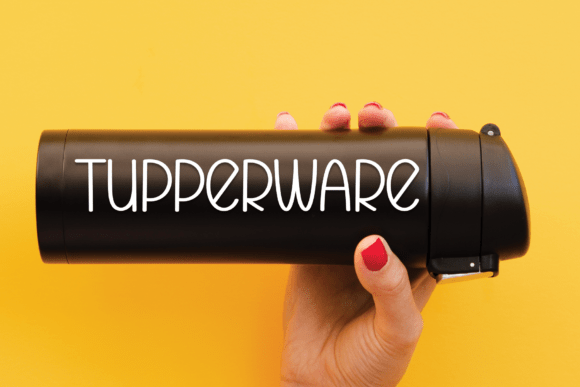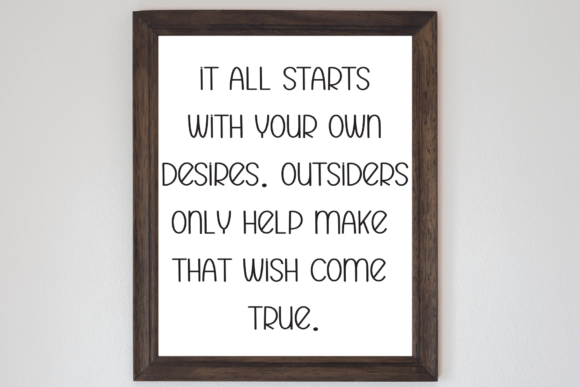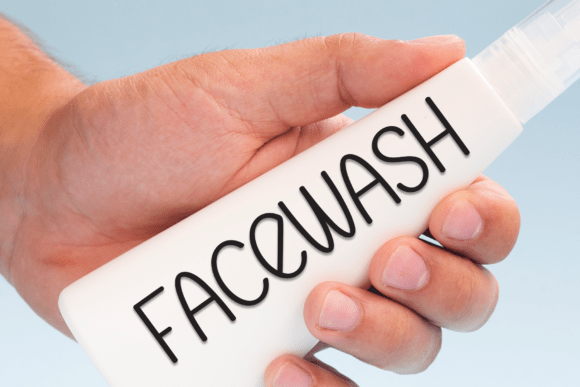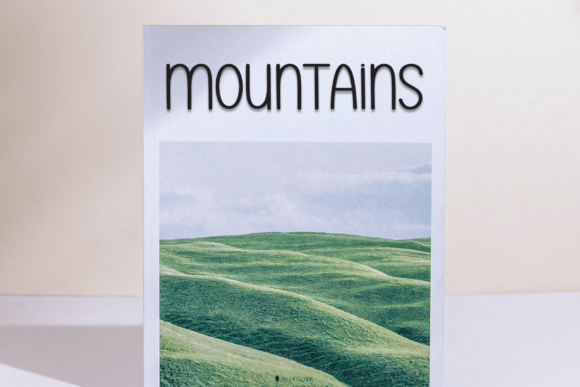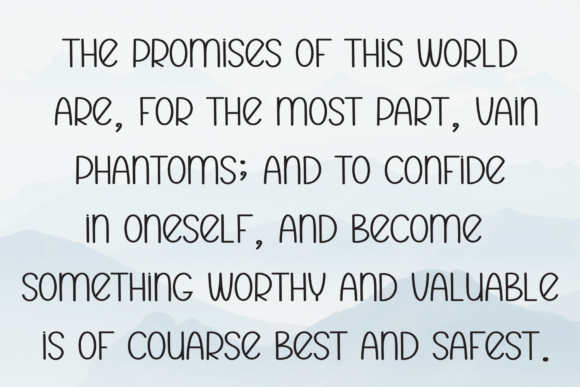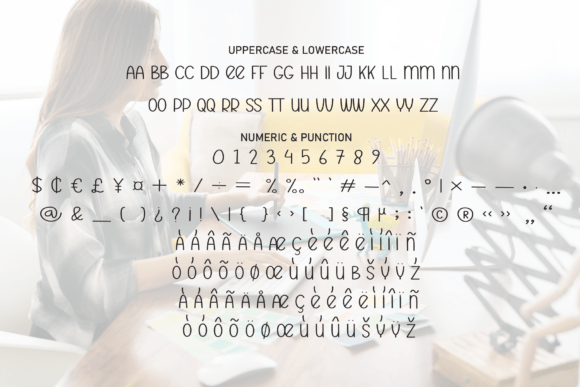
Unleash the Playful Side of Your Designs
Remember the thrill of brainstorming for your next design project? The excitement of bringing a concept to life, and the joy of seeing it all come together? That’s exactly the feeling we aimed to capture with our latest creation: Designer Monday Font.
This charming, handwritten display font is designed to add a dash of fun and personality to any design project. Whether you’re crafting wedding invitations, greeting cards, or social media graphics, Designer Monday Font is the perfect companion to help you infuse a pinch of playfulness and whimsy. As a designer, you know how valuable it is to have a versatile font that can elevate your designs and make them truly stand out.
With Designer Monday Font, you’ll be able to add a sprightly touch to your designs and make them truly unforgettable. So why settle for ordinary when you can have extraordinary? Experience the joy of working with Designer Monday Font and take your designs to the next level!
Designer Monday Font Key Features
- Font Family: Designer Monday is a sans-serif font family designed for modern and creative projects.
- Unique Characteristics: The font features a unique blend of modern and vintage elements, with subtle rounded edges and a clean, minimalist aesthetic.
Designer Monday Font Review
Overall, I have mixed feelings about the Designer Monday Font. On one hand, it’s a solid choice for casual projects or titles.
- ✨ Friendly and approachable vibe: The font is perfect for projects that need a relaxed and inviting tone.
- ✨ Good legibility: The font is easy to read, even at smaller font sizes.
- ✨ Aesthetically pleasing: The font has a clean and modern design that works well in various contexts.
- ⚠️ Limited versatility: The font might not be the best choice for complex or formal projects.
- ⚠️ Limited font weight options: The font is only available in a few weights, which can limit its use in certain situations.
- ⚠️ Limited international support: The font may not support all languages, which can be a limitation for projects that require multilingual support.
While the Designer Monday Font is a solid choice for certain projects, it may not be the best fit for more complex or formal projects. Overall, I’d give it a 3.5 out of 5 stars.